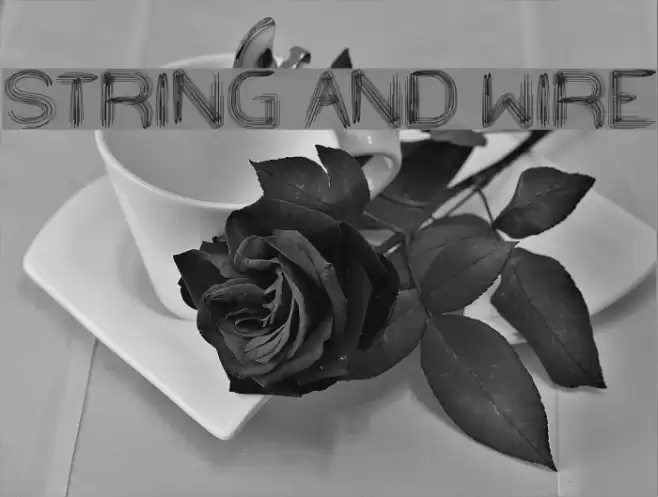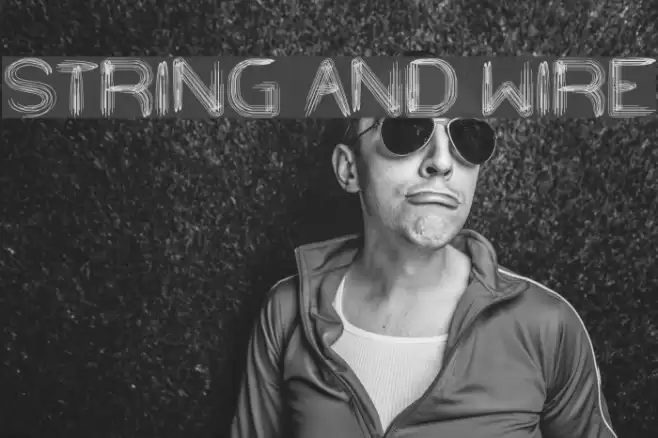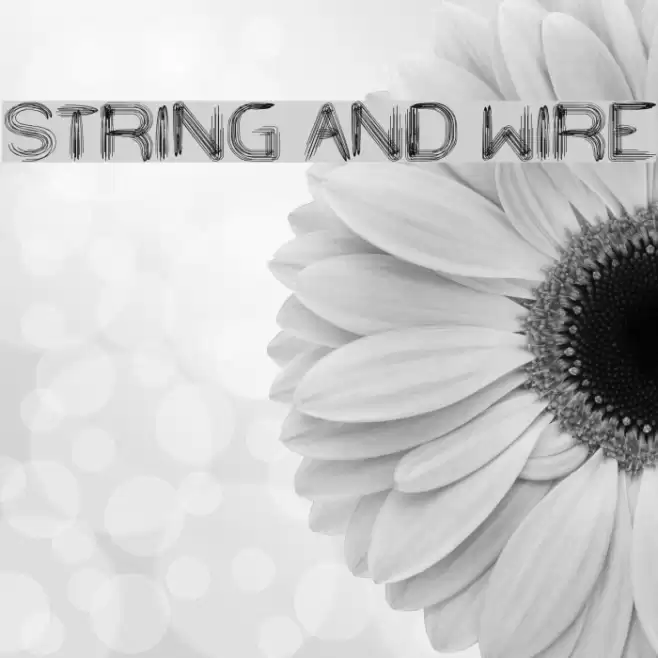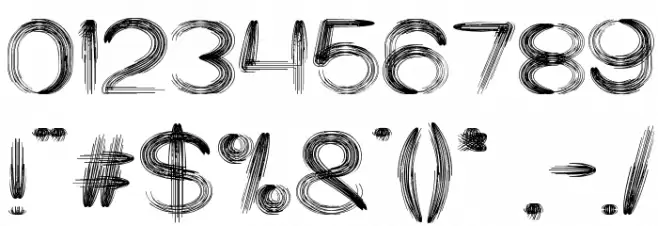
STRING AND WIRE Font
STRING AND WIRE Description
This font features a unique, hand-drawn style that mimics the appearance of tangled strings or wires. Each character is composed of multiple overlapping lines, creating a textured and dynamic look. The uppercase and lowercase letters maintain a consistent style, with rounded edges and a playful, artistic flair. The numbers and special characters follow the same design principles, ensuring a cohesive appearance across all glyphs. This font's intricate design makes it stand out, offering a creative and unconventional aesthetic.
A hand-drawn, string-like font with overlapping lines and a textured appearance from Uncategorized fonts.